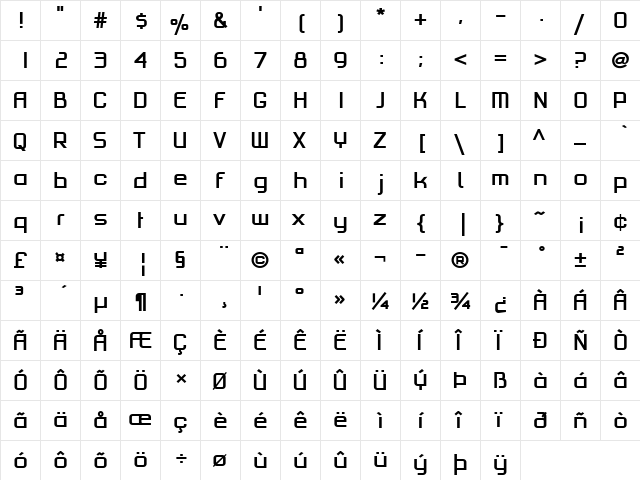
PF HausSquare Pro Bold
| Foundry | Parachute蠗orldwide |
| Designer | Elina Arapoglou |
Design Context for PF HausSquare Pro Typeface
PF HausSquare Pro takes a measured approach to typography — its balanced proportions and neutral character make it a reliable workhorse for both digital and print work. The heavy weight commands attention and anchors typographic hierarchies.